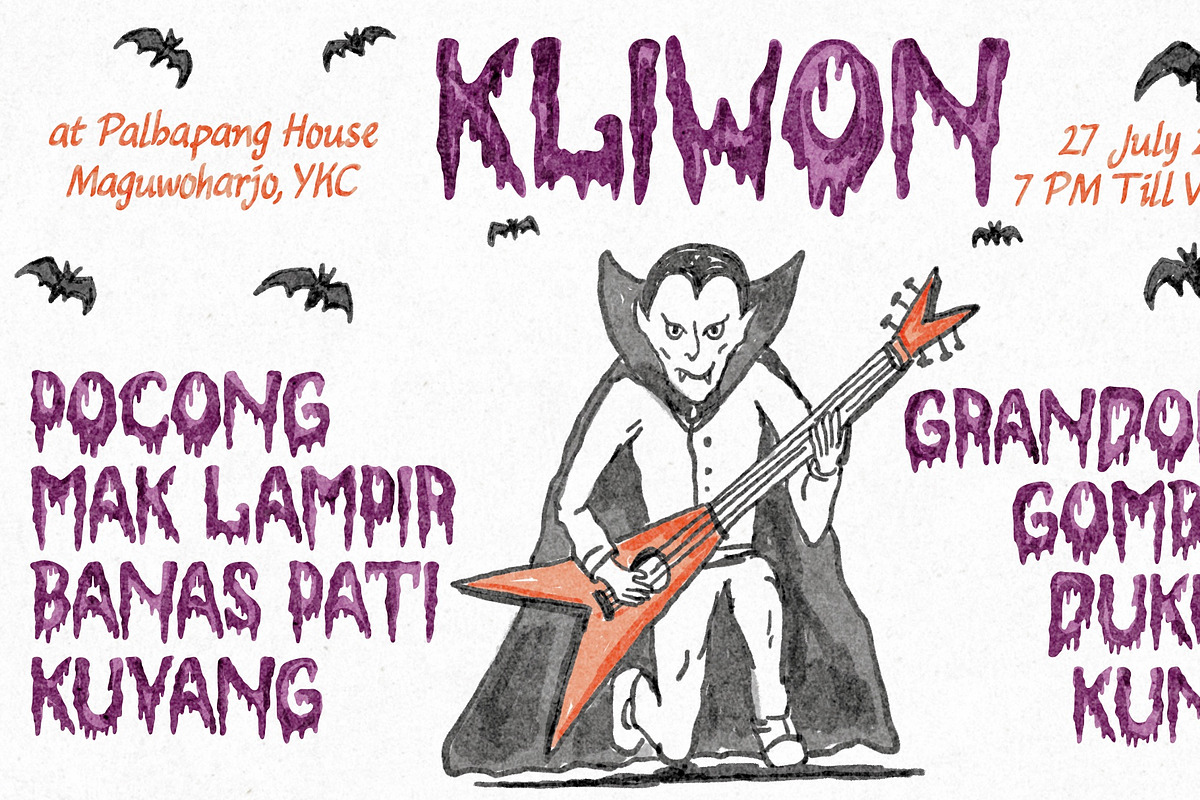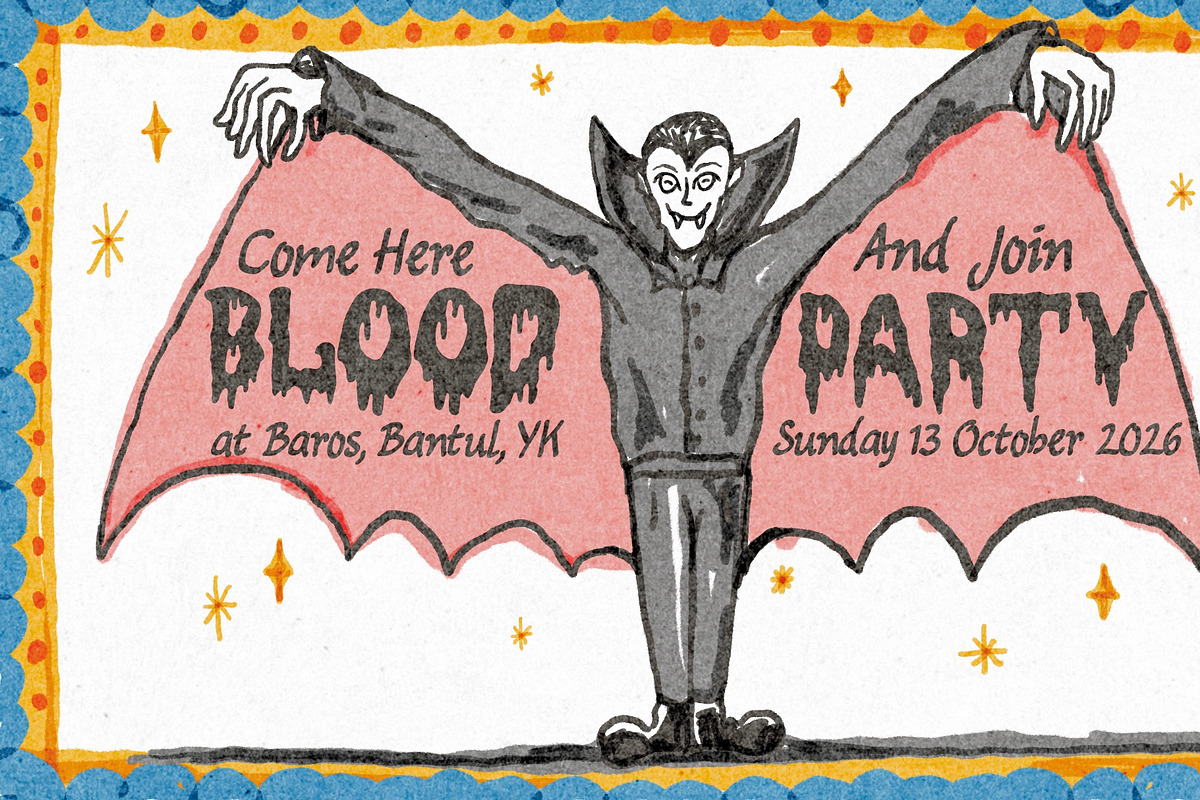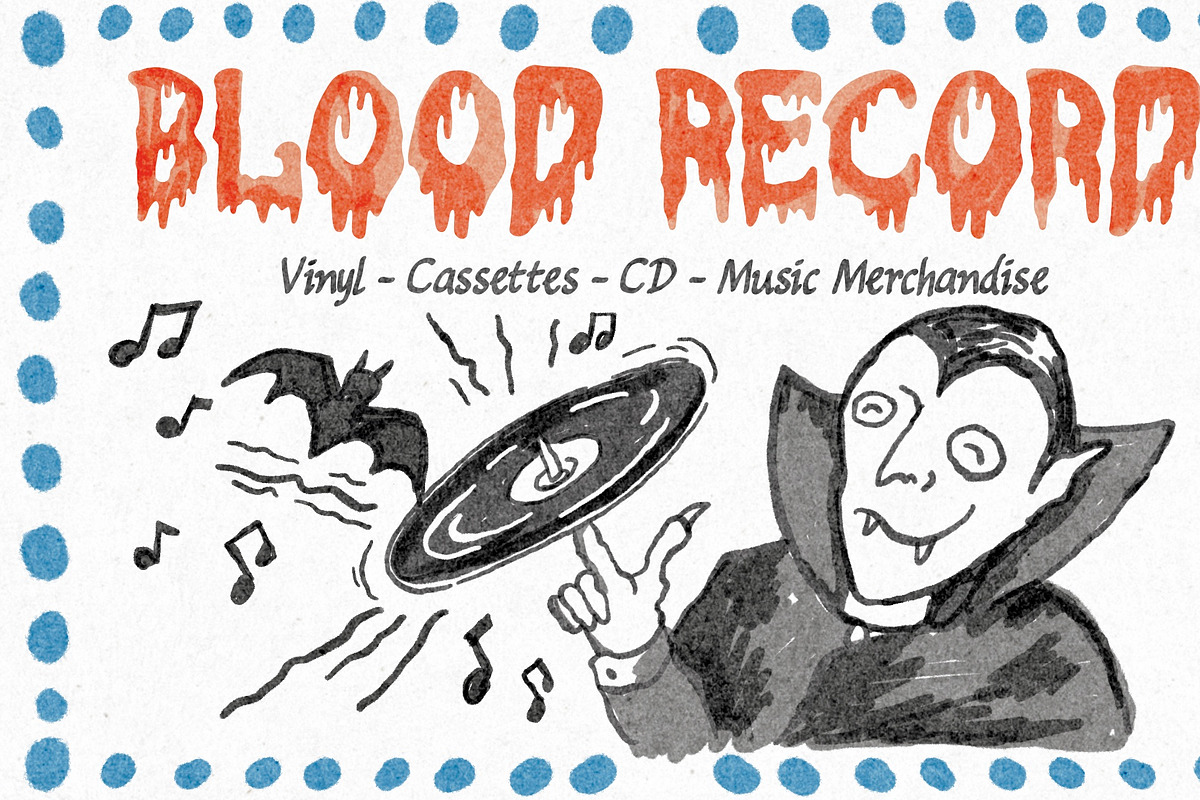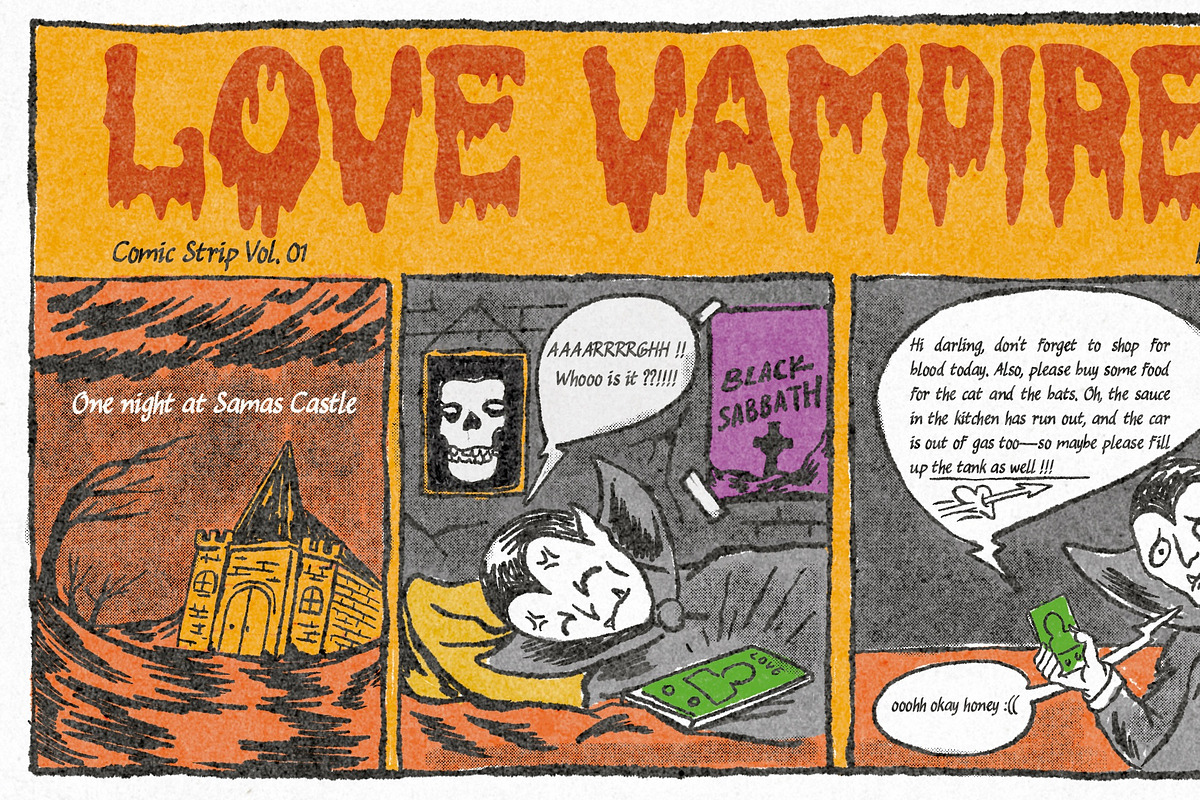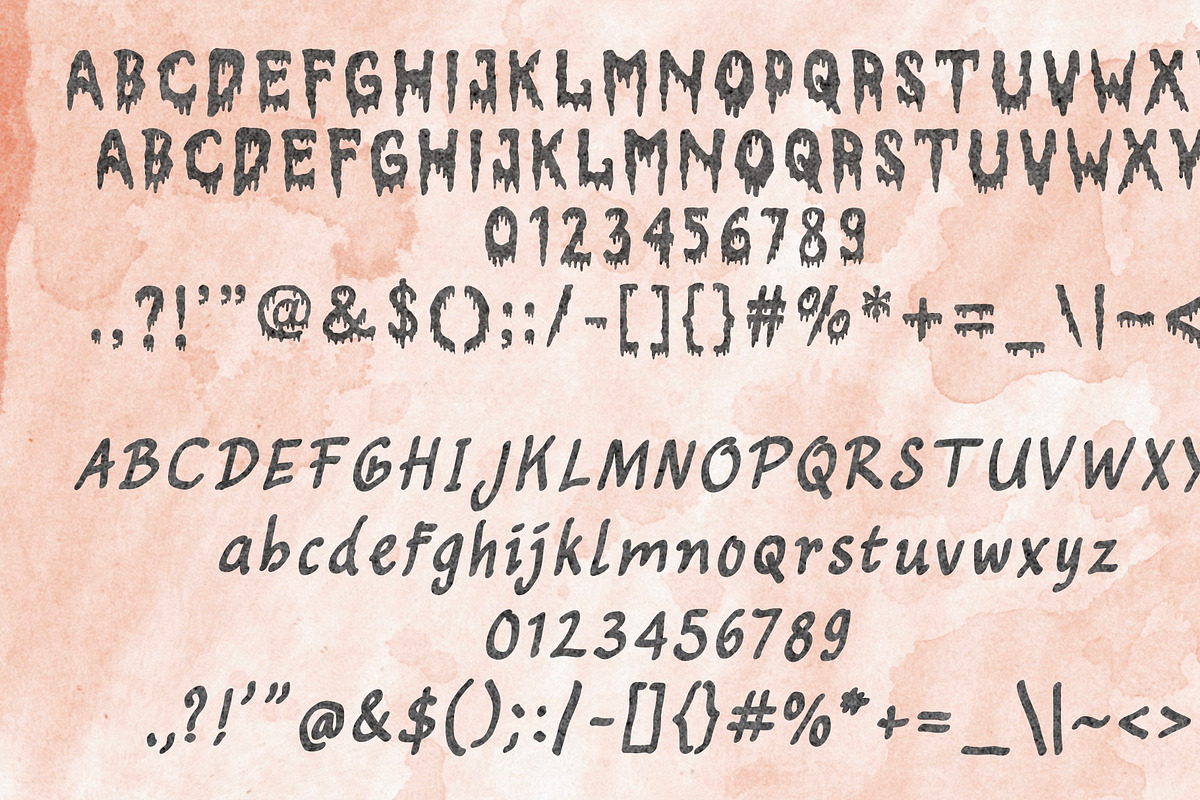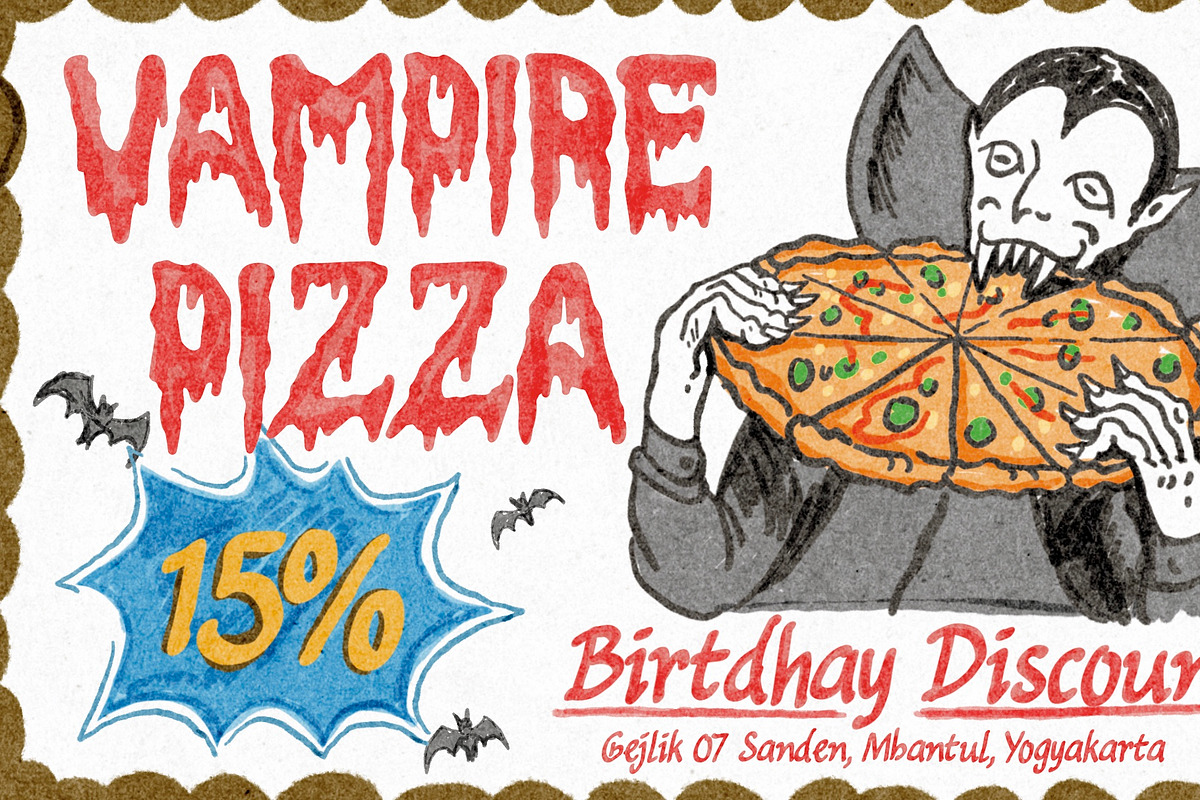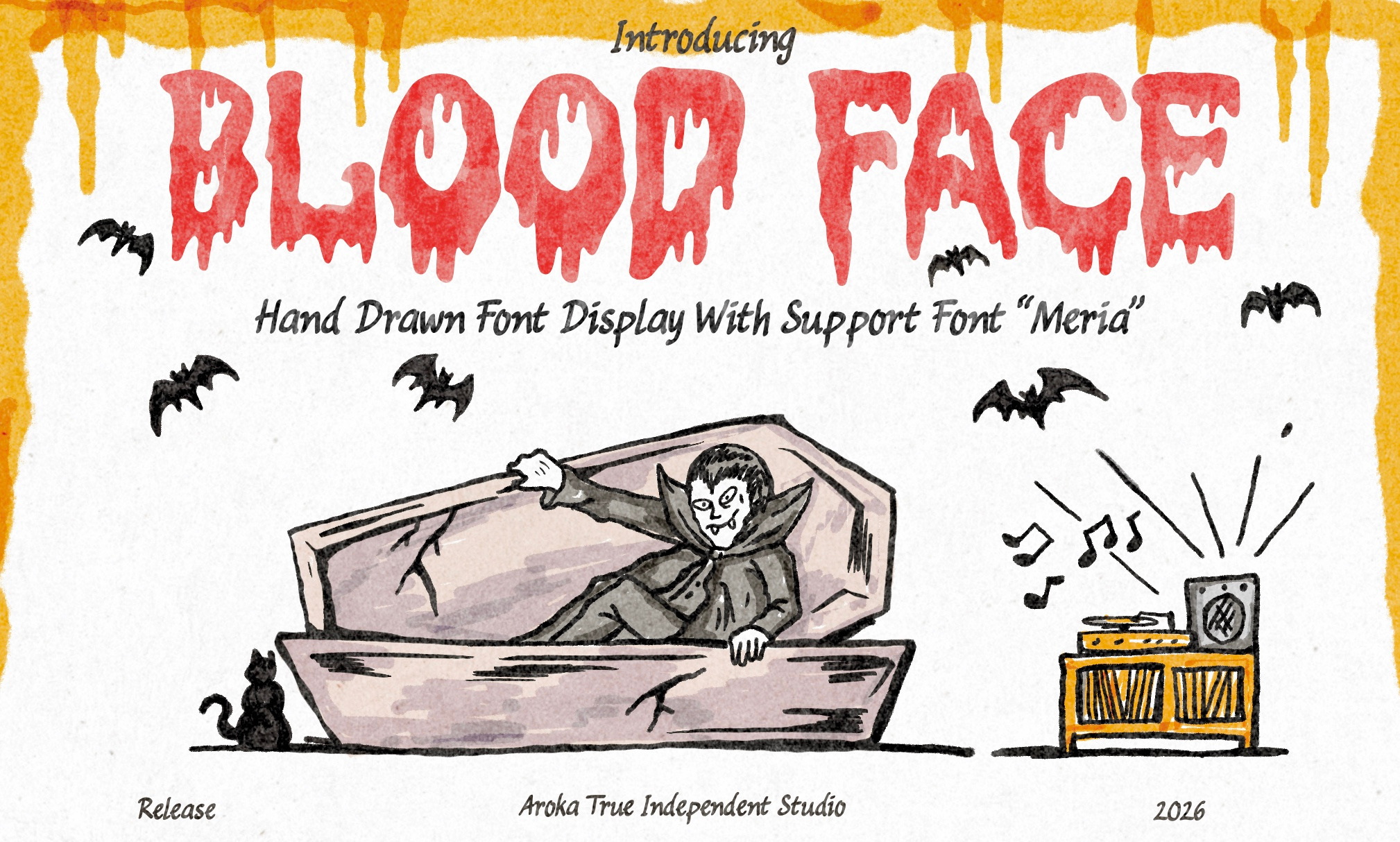
Blood Face Horror Font
Blood Face is a display font inspired by the aesthetics of vintage horror comics and underground indie band posters. It is hand-drawn and pairs perfectly with the "Meria" font. Designed to capture the spirit of Halloween, it is a great fit for the season. Thank you very much !!